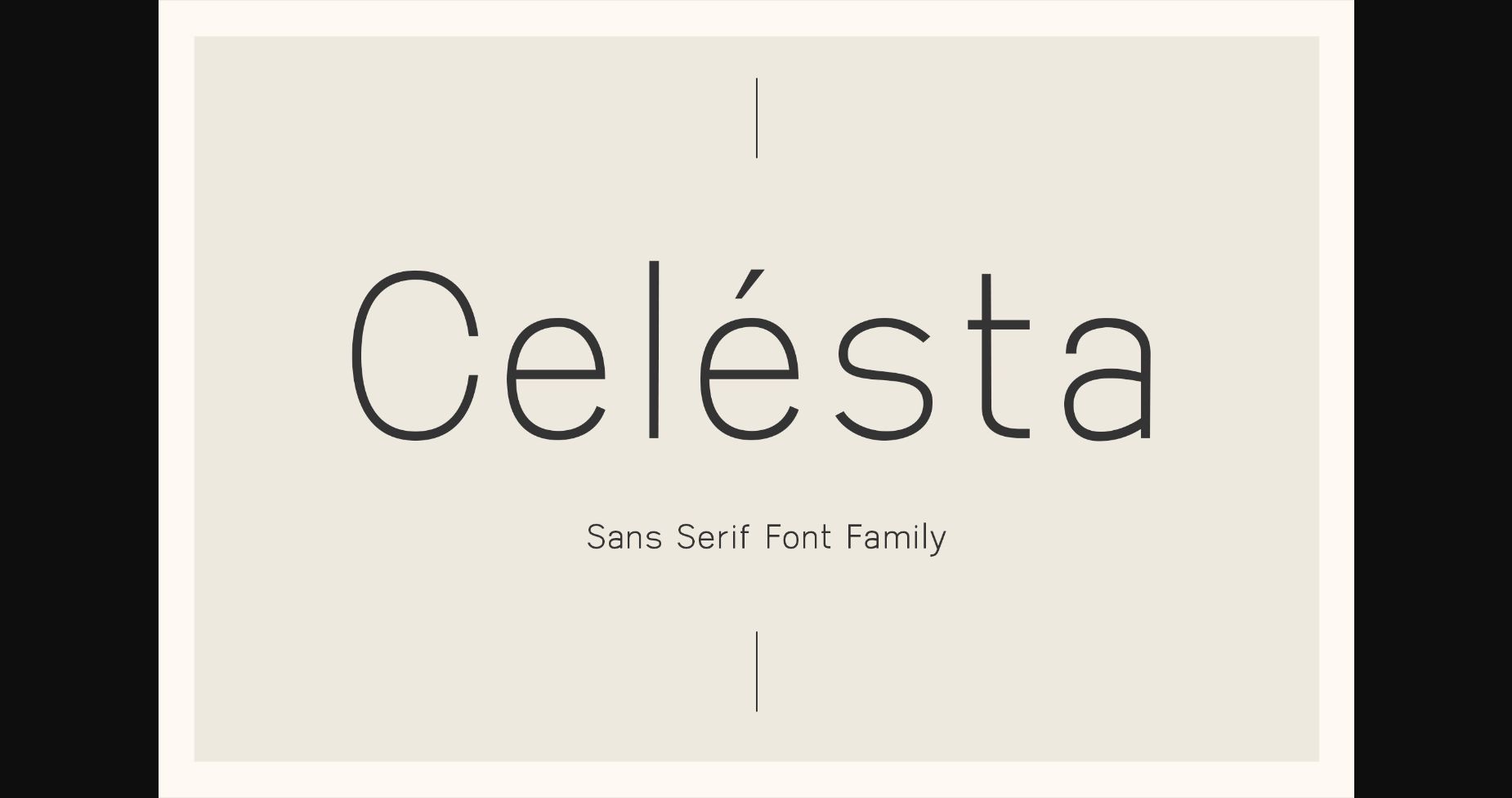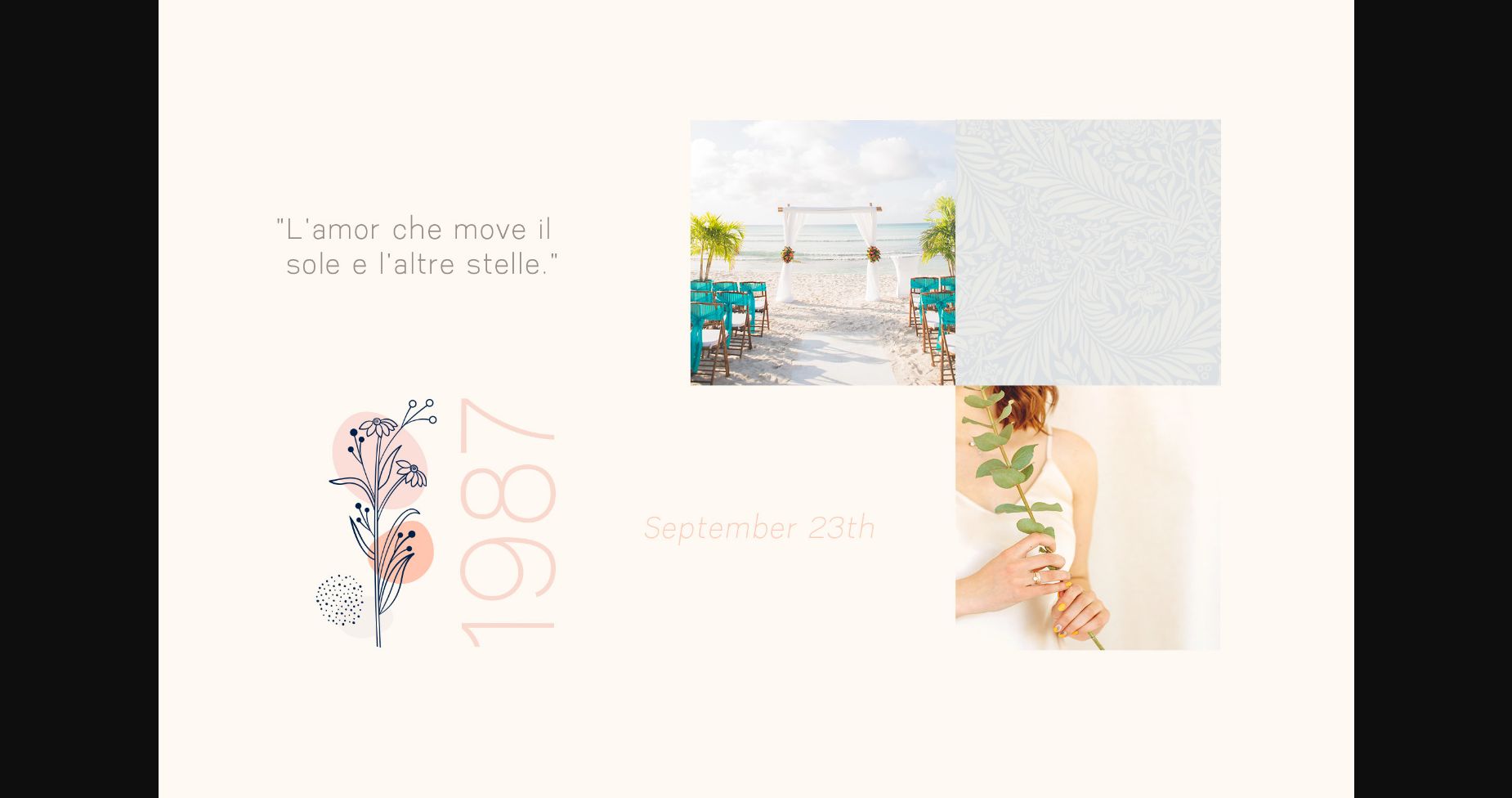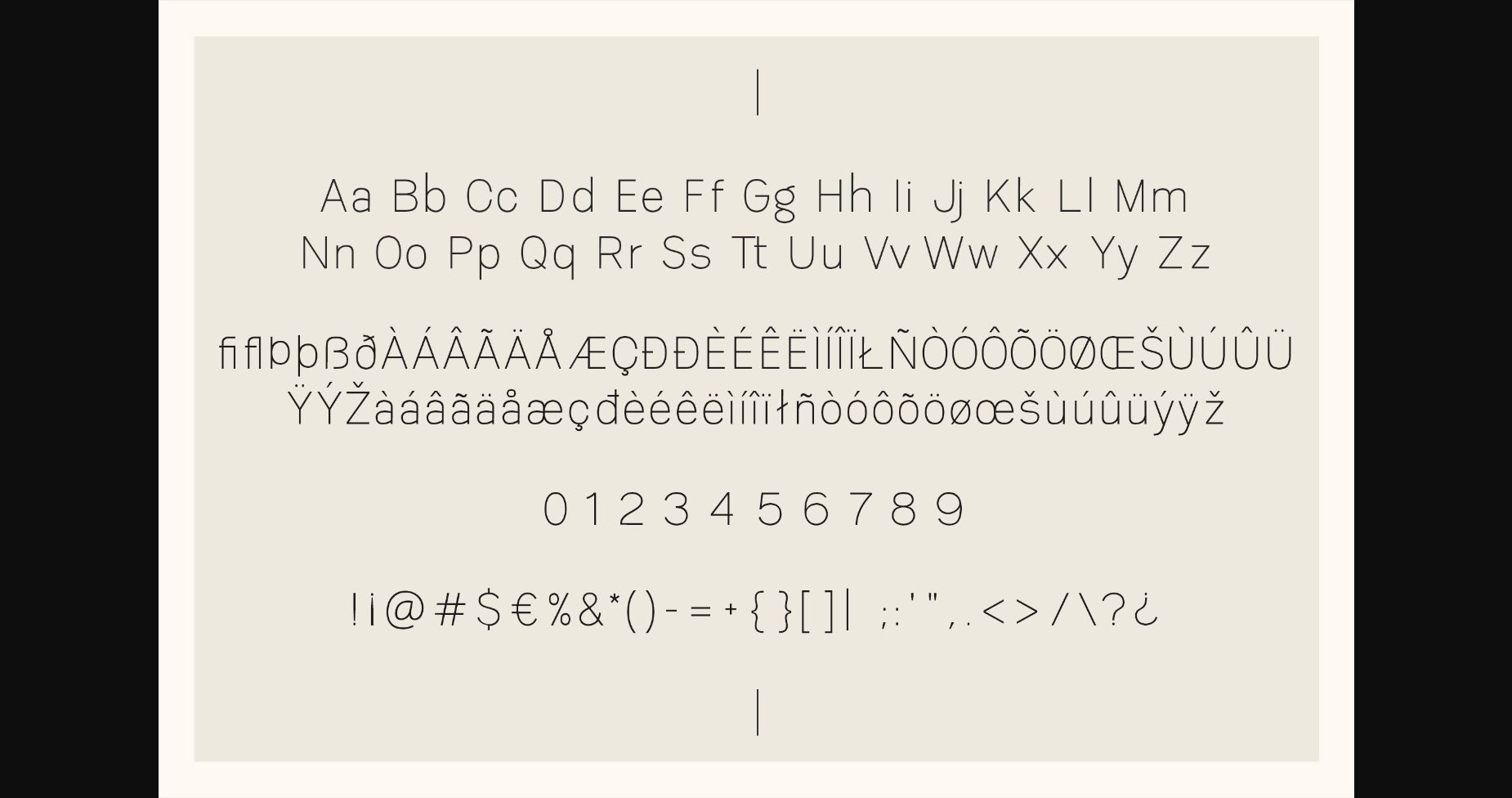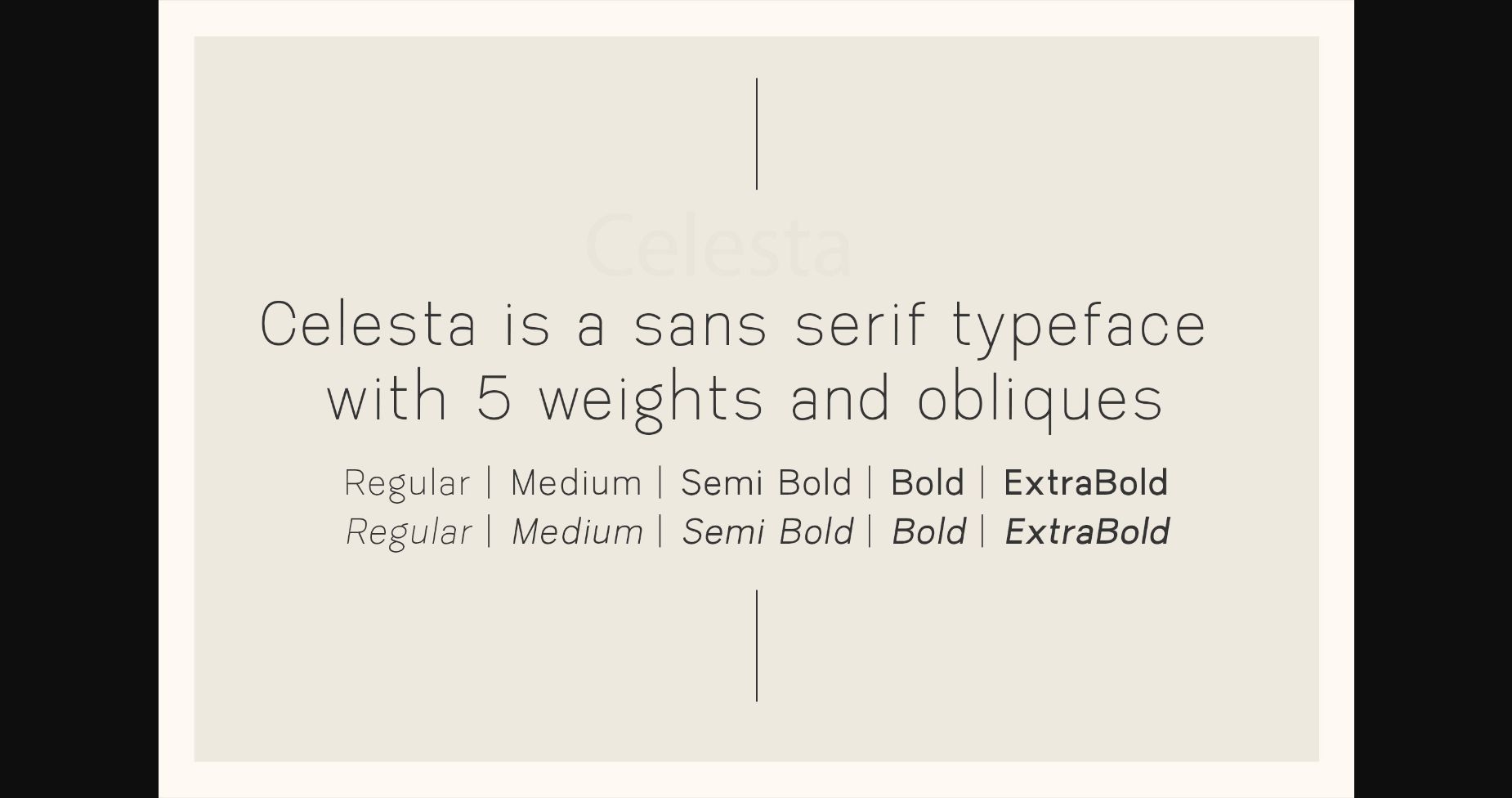
About Celesta Font
Celesta is a thin lettered and neat sans serif font. It can easily be matched to an incredibly large set of projects, so add it to your creative ideas and notice how it makes them stand out!